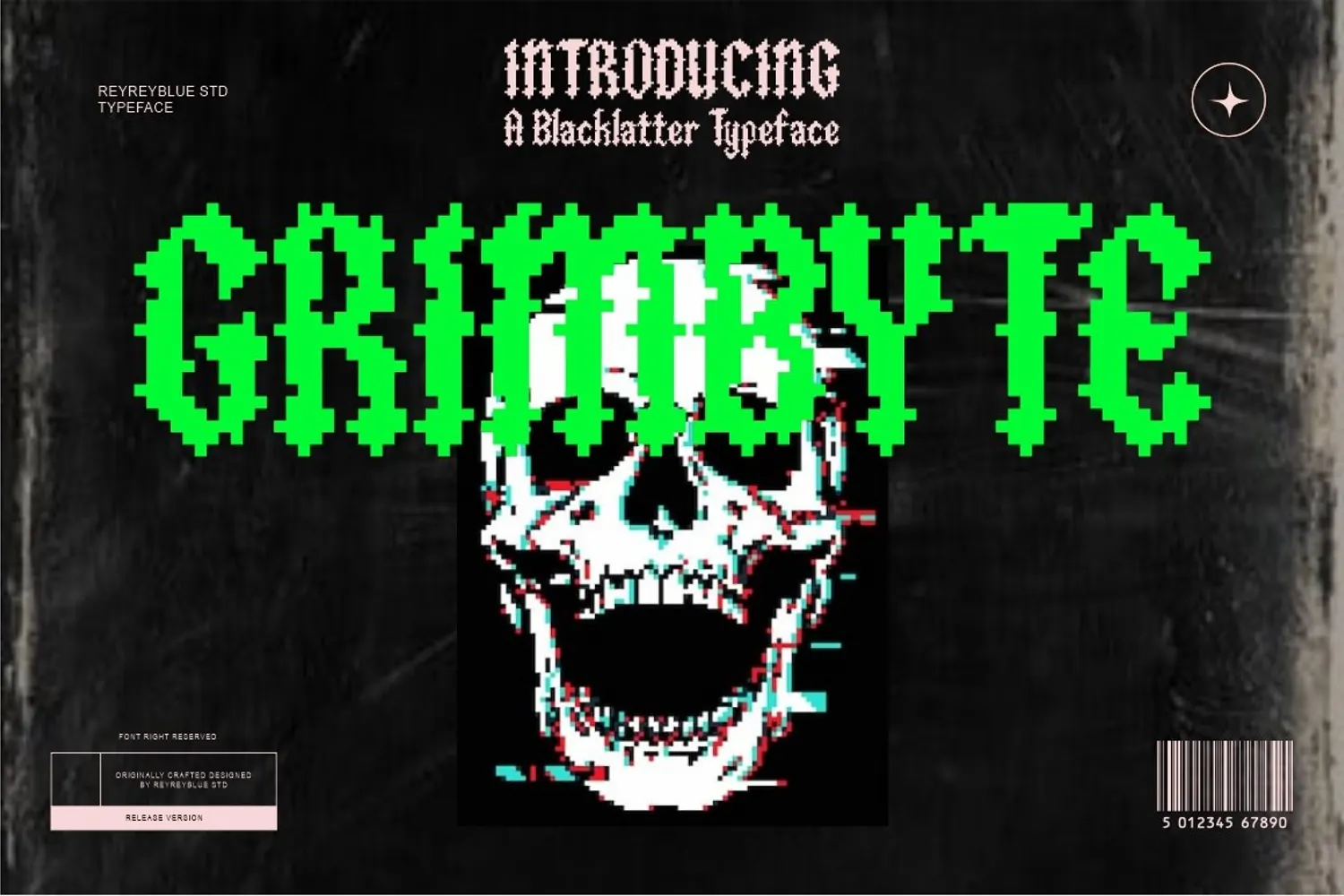
Grimbyte
Introducing Grimbyte — a distorted Blackletter typeface with a dark digital edge.
Grimbyte blends the dramatic forms of traditional Blackletter and Gothic typography with a raw, distorted digital aesthetic. Sharp medieval-inspired letterforms are reimagined with glitch-like irregularities and pixel-inspired details, creating a bold and unconventional display typeface.
Dark, aggressive, and experimental, Grimbyte is designed to make a strong visual impact in metal and punk branding, horror artwork, album covers, band logos, streetwear graphics, posters, gaming designs, tattoos, merchandise, and alternative branding.
With its fusion of Gothic lettering, Blackletter tradition, grunge distortion, and digital glitch aesthetics, Grimbyte brings an underground character to both contemporary and retro-inspired designs.
Grimbyte is made for designs that refuse to look ordinary.